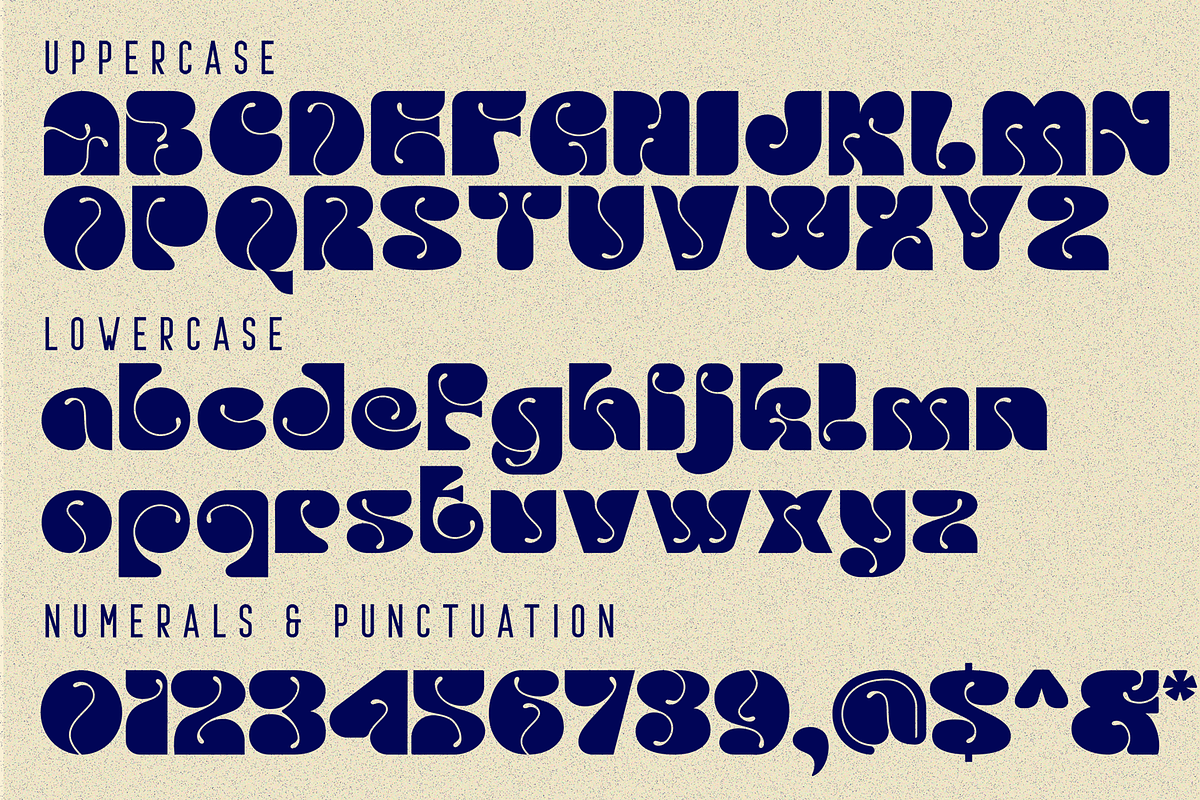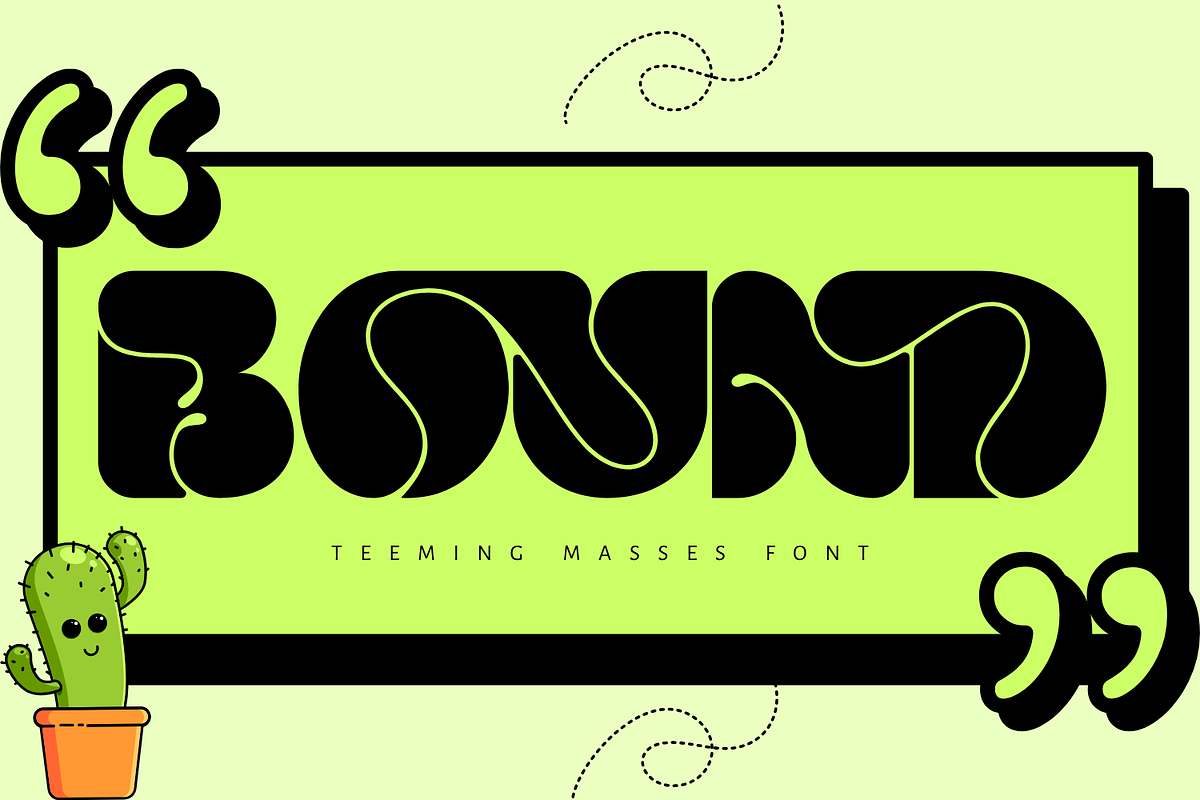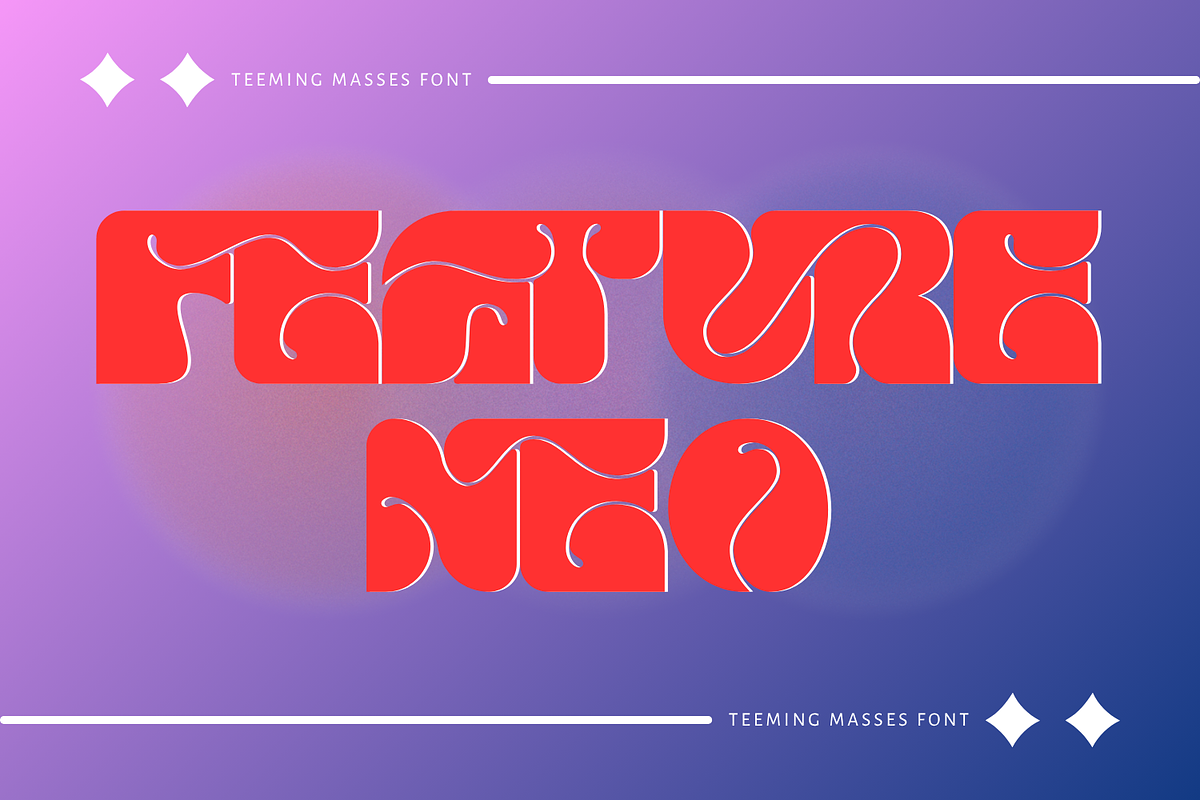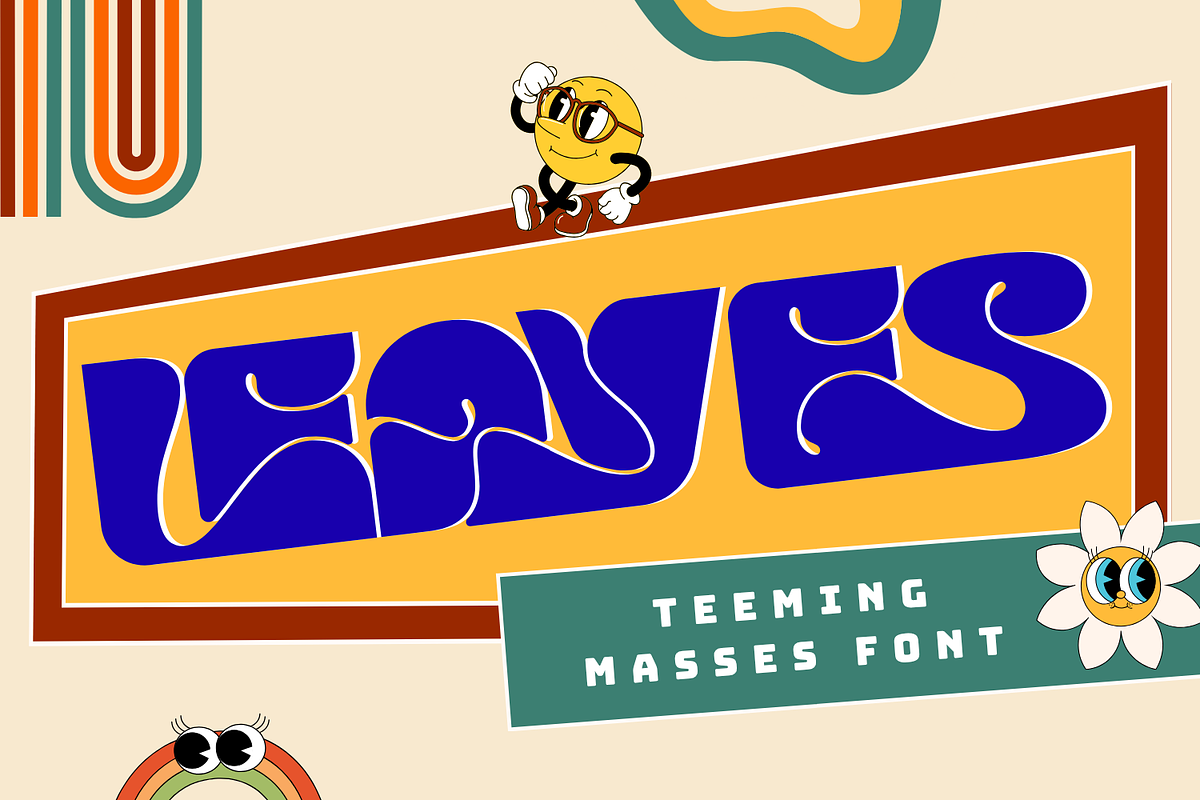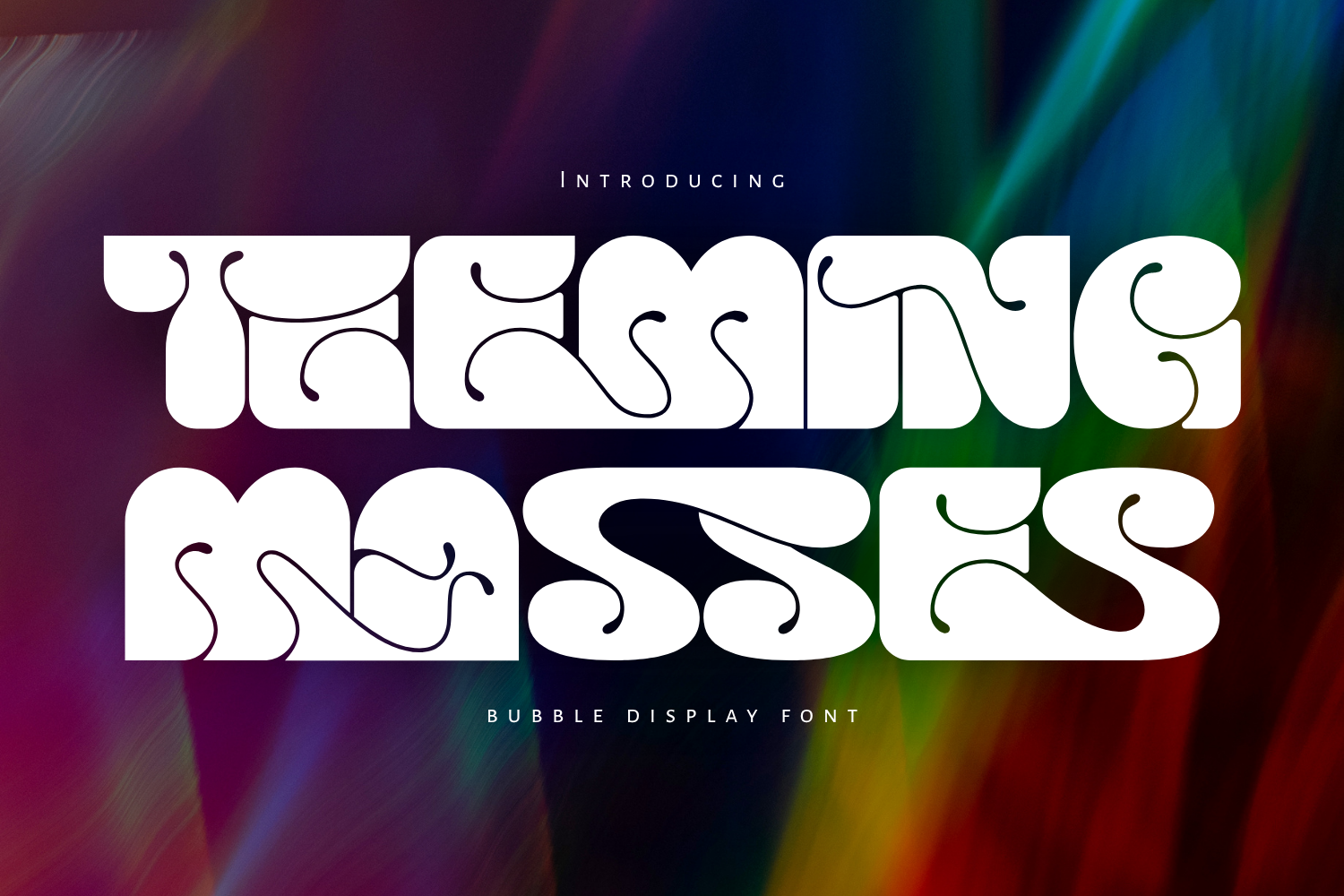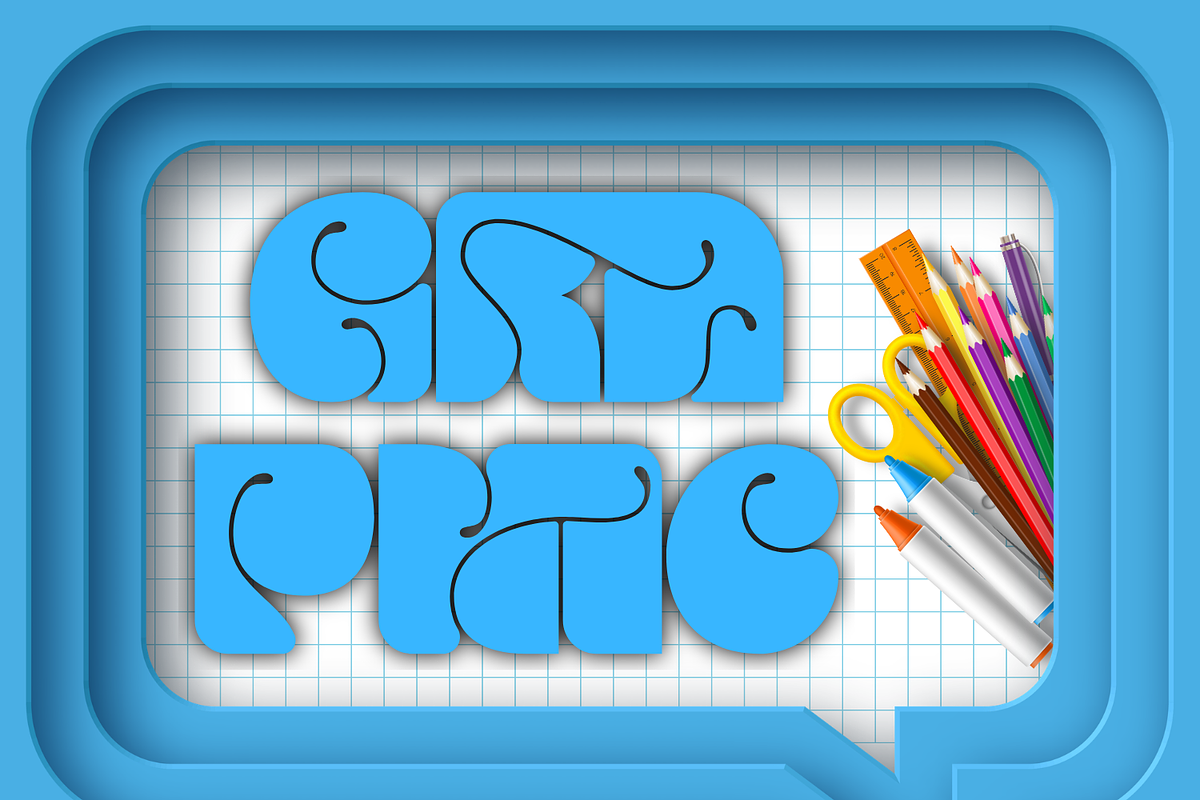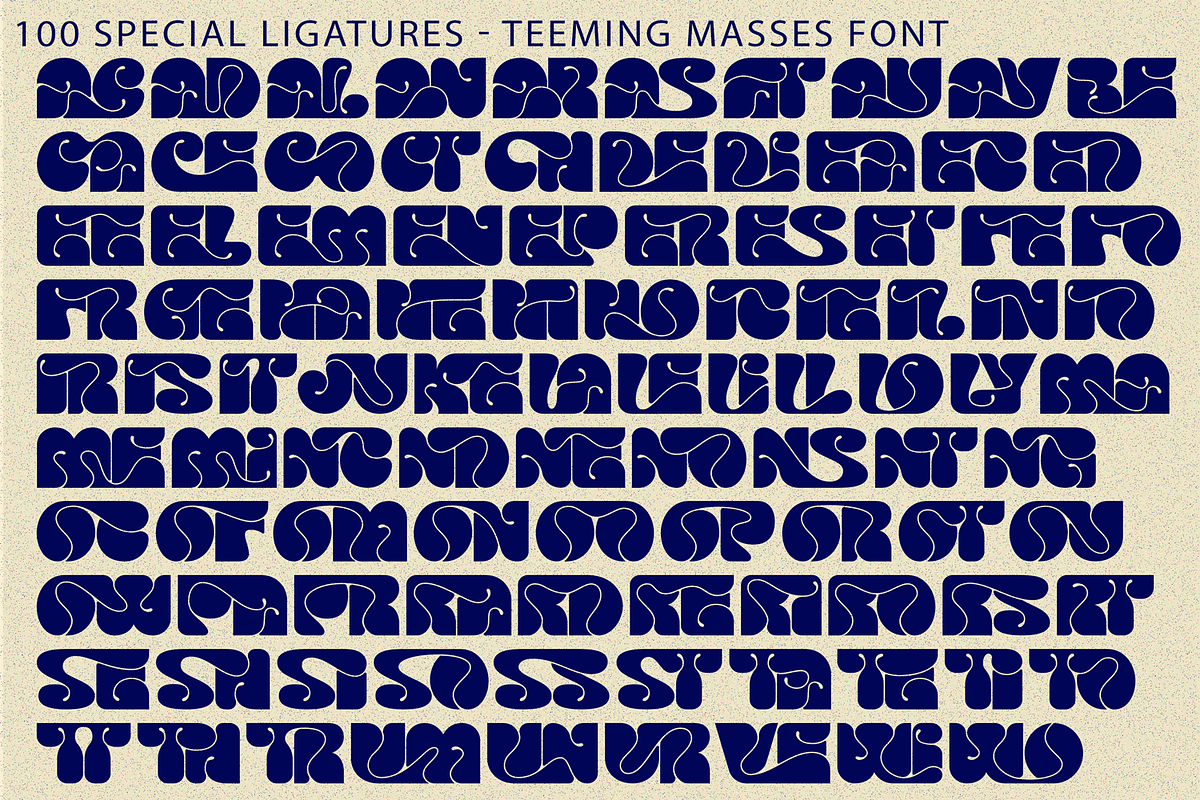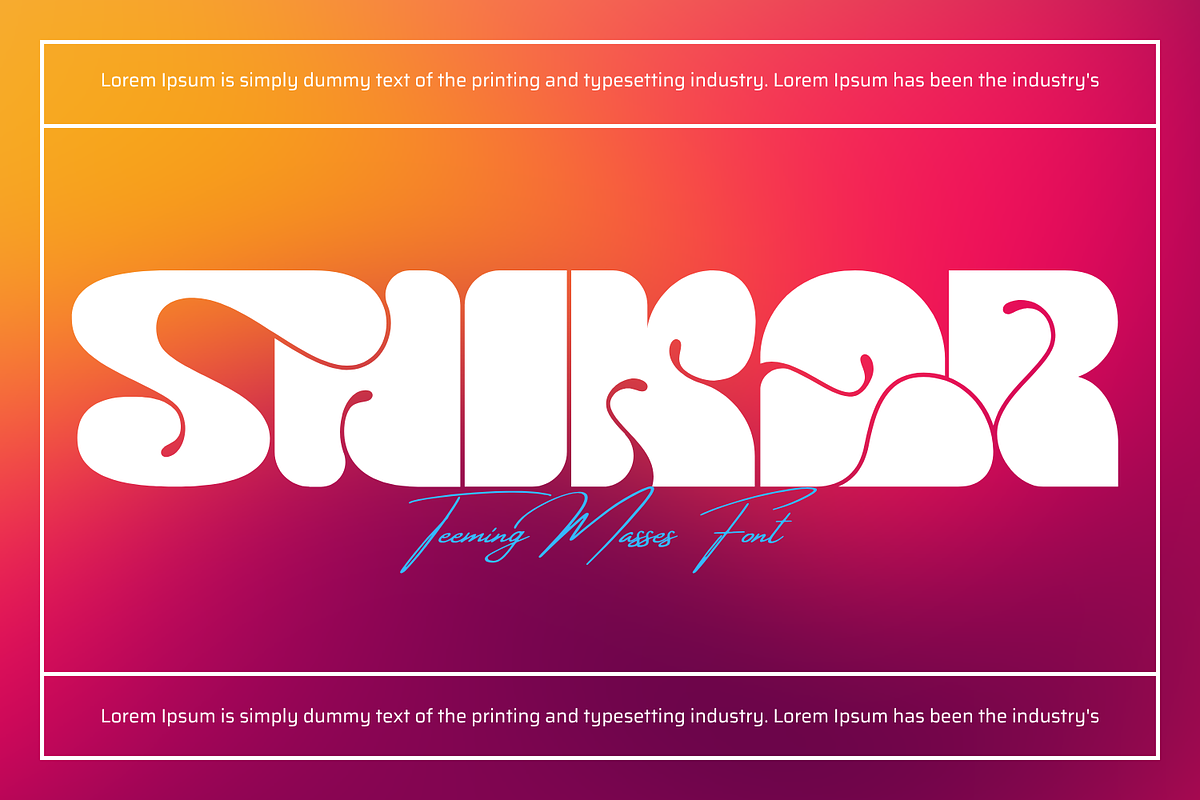
TEEMING MASSES - BOLD GROOVY FONT
TEEMING MASSES - BOLD GROOVY FONT is a bold retro groovy display font inspired by psychedelic 70s typography, liquid shapes, and playful visual rhythm. Featuring chunky rounded letterforms, flowing inner curves, and expressive decorative details, this typeface brings a fun, energetic, and unmistakably nostalgic personality to any design. Its soft organic structure creates a strong visual impact while keeping a friendly and creative feel. TEEMING MASSES is perfect for music posters, festival branding, album covers, packaging, apparel graphics, social media artwork, and standout headlines.
🔤Features:
Uppercase & Lowercase Letters
Around 100 Special Ligatures & Alternates
Accented Characters for multilingual support
🔤About 100 ligatures combined with Stylistic Alternates Font:
AC AD AL AN AR AS AT AU AV BE CA CE CH CO CT DE DI EA EC ED EE EL EM EN EP ER ES ET FE FO FR GE HA HE HI HO IE IC IL IN IO IR IS IT JU KE LA LE LI LL LO LY MA ME MI NC ND NE NG NO NT NS OC OF OM ON OO OP OR OT OU OW PA PR RA RD RE RI RO RS RT SE SH SI SO SS ST TA TE TH TI TO TR TT UM UN UR VE WI WO